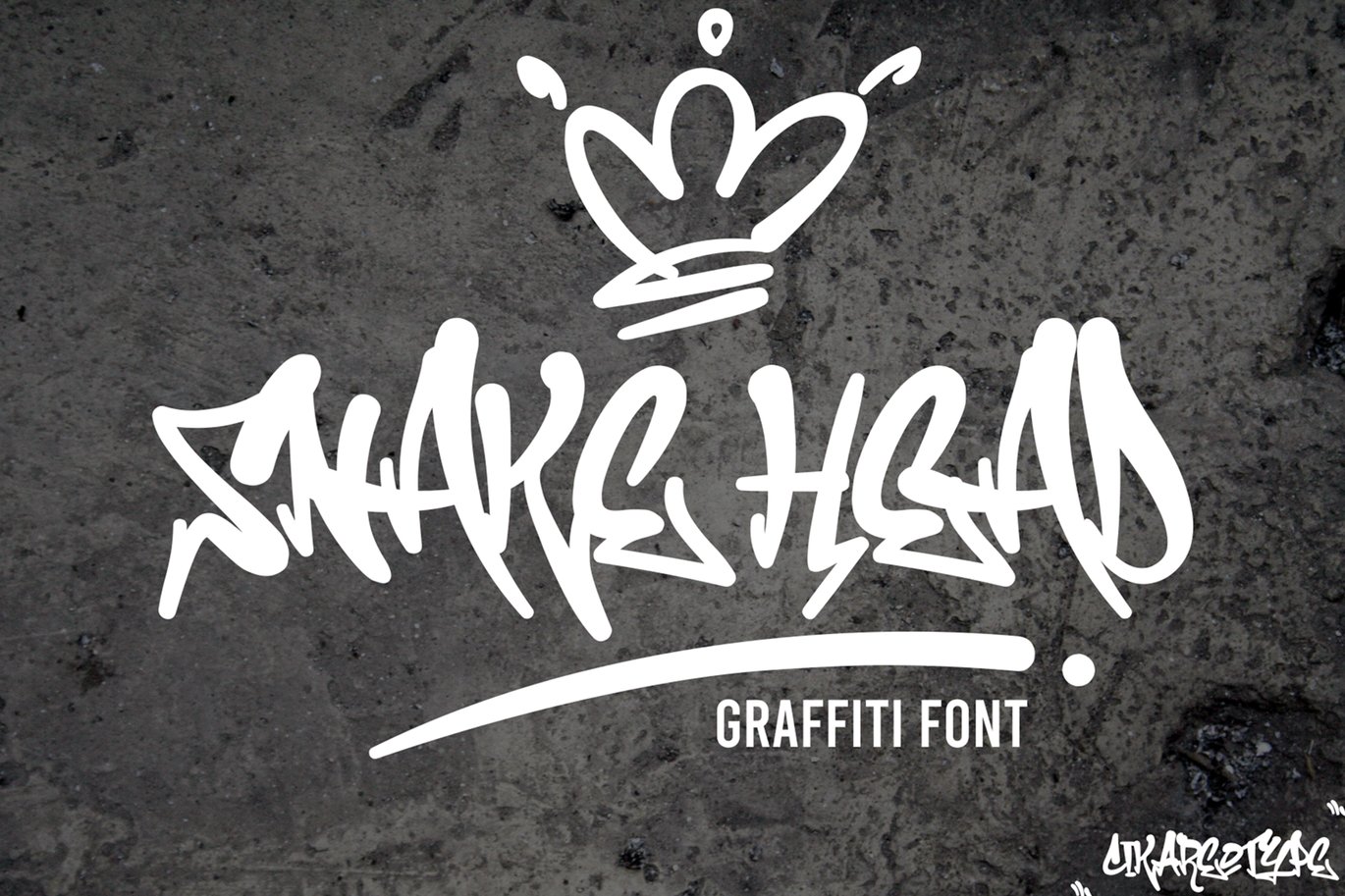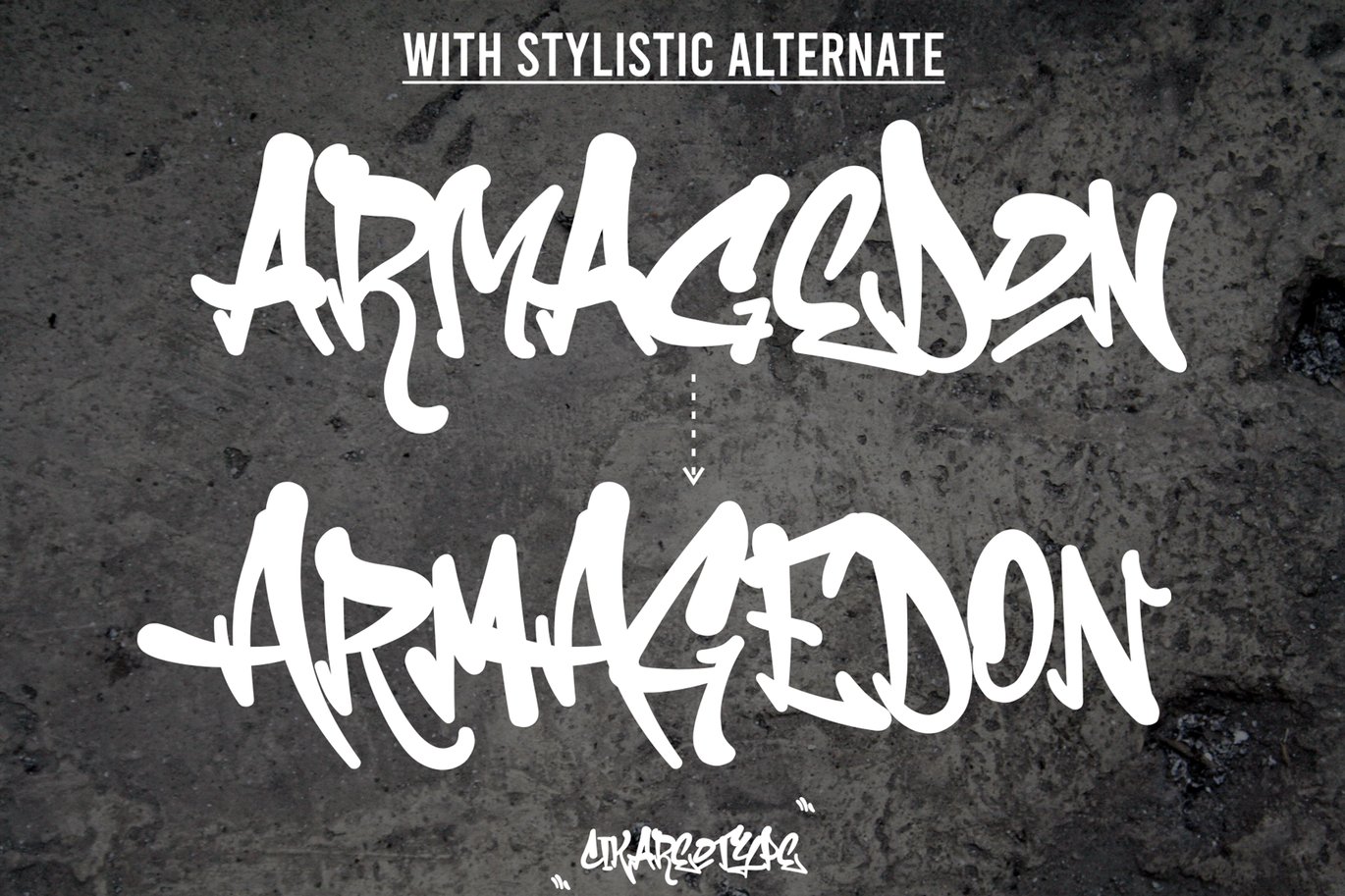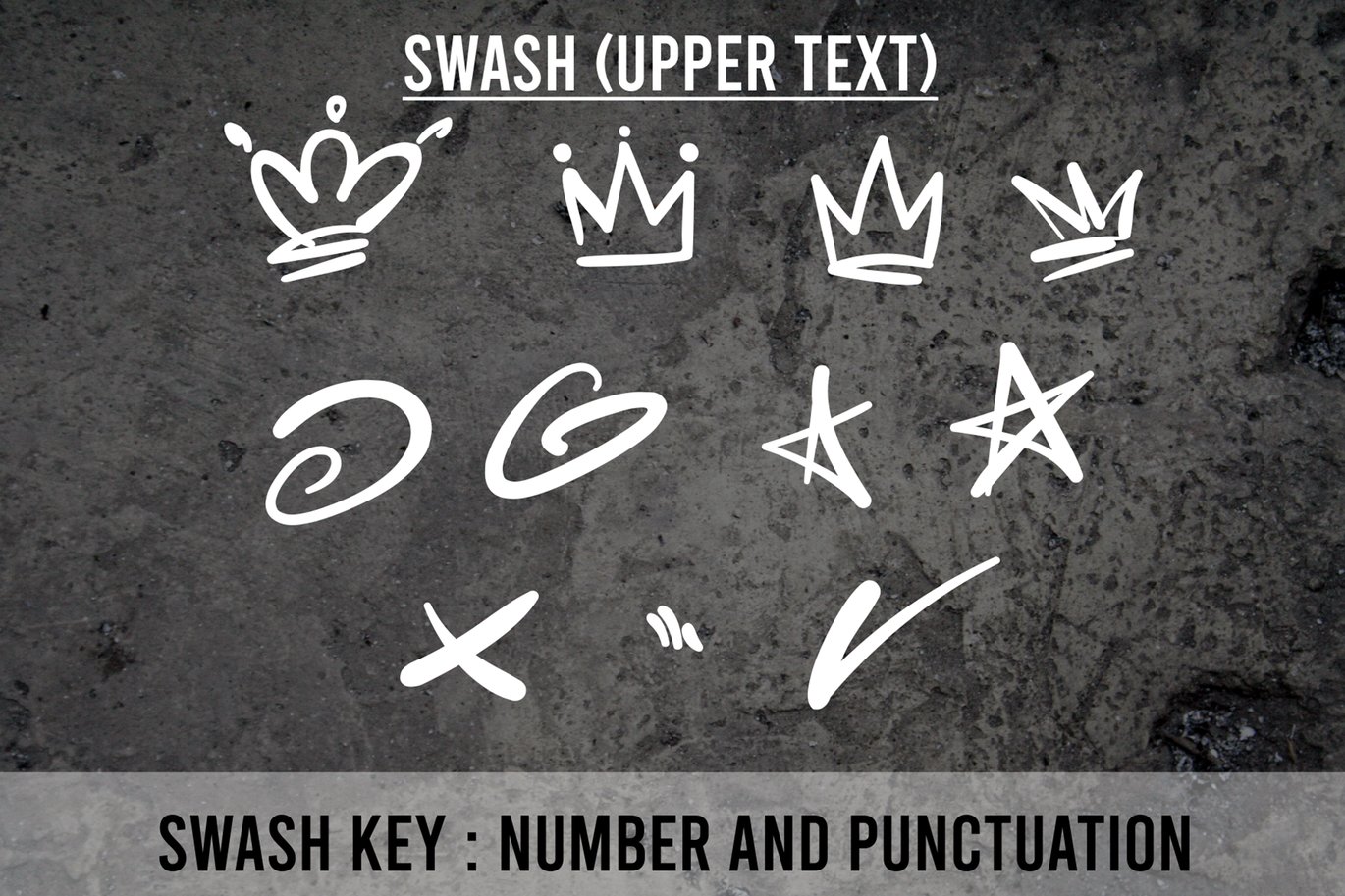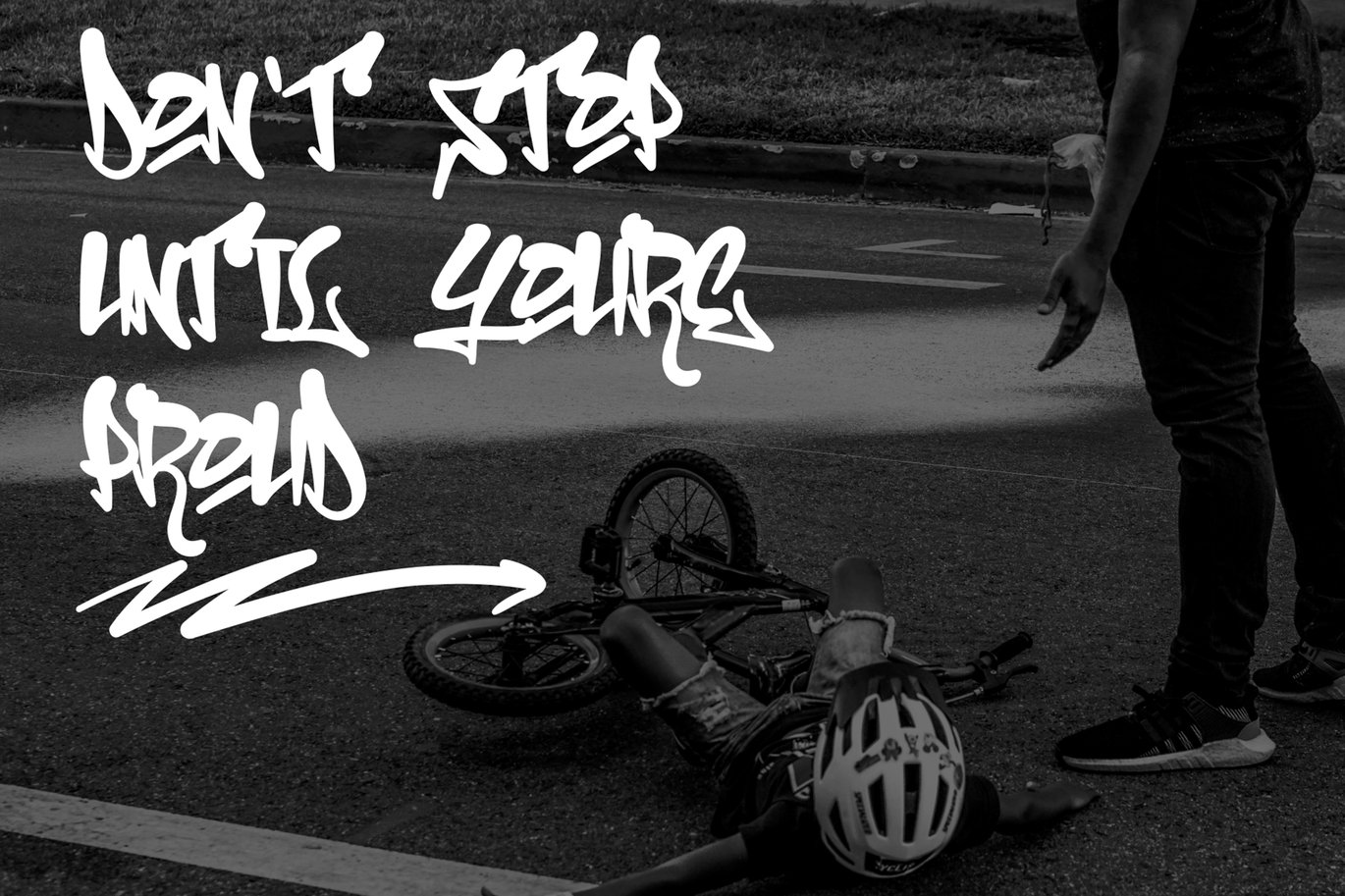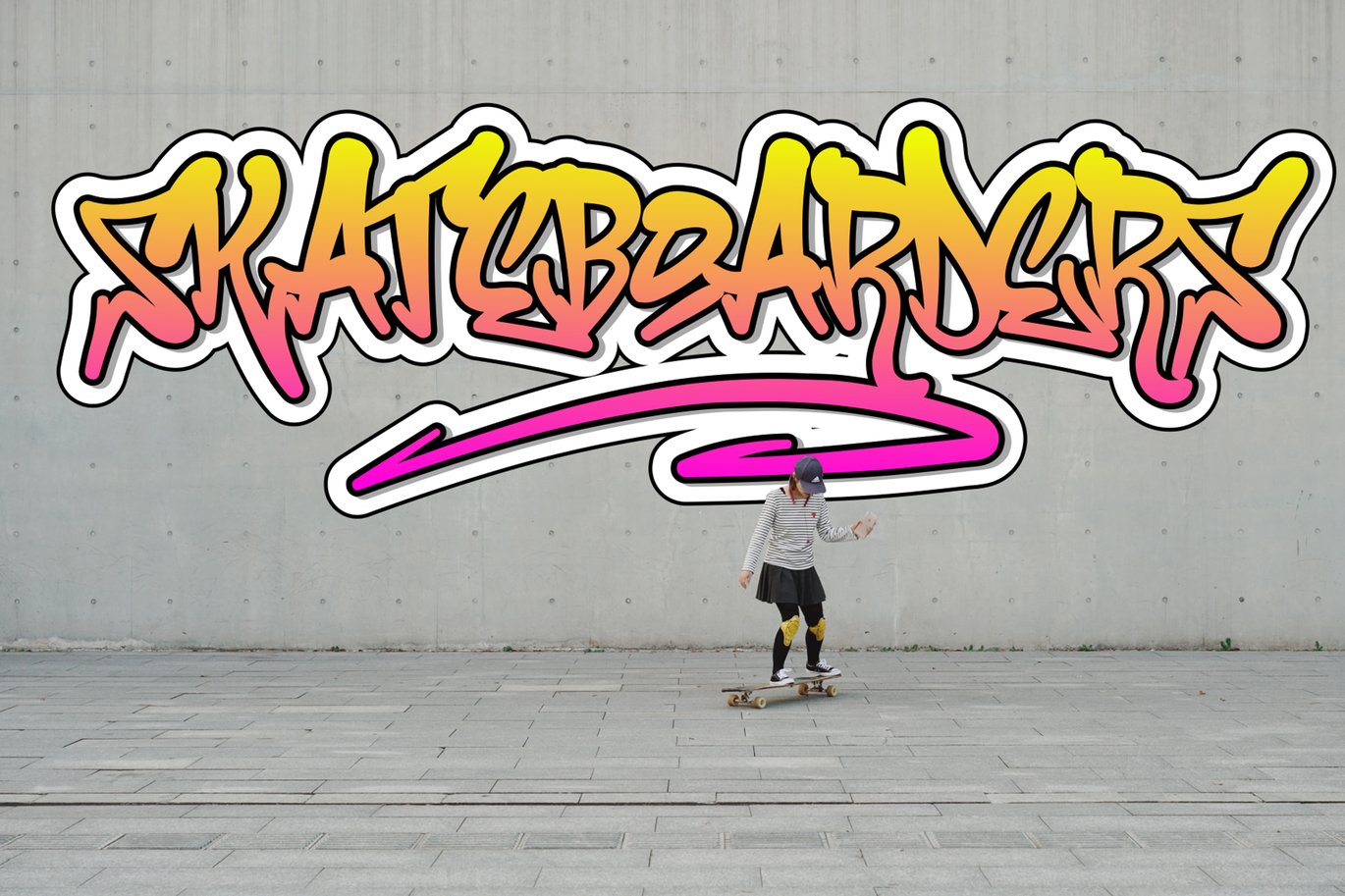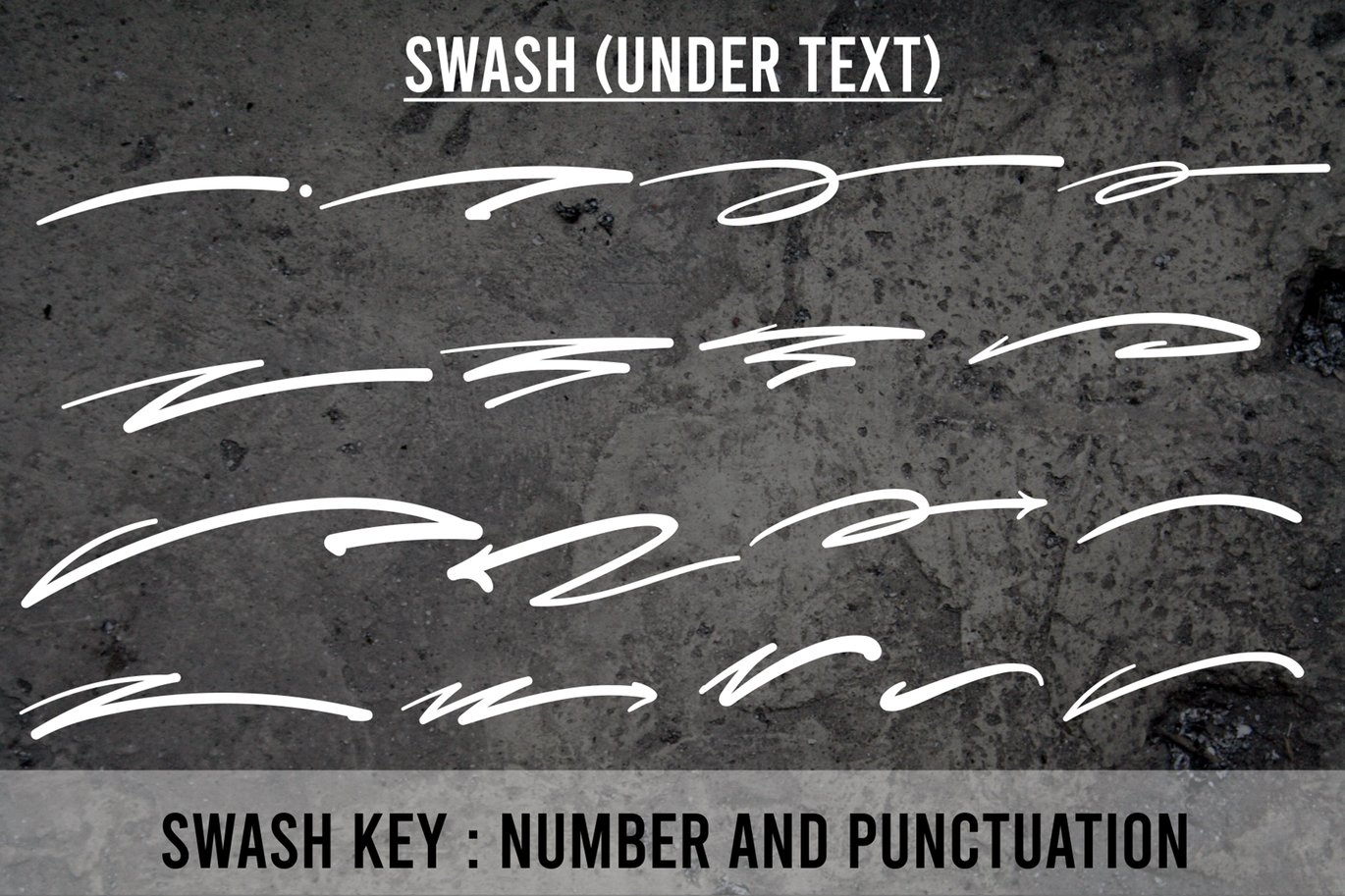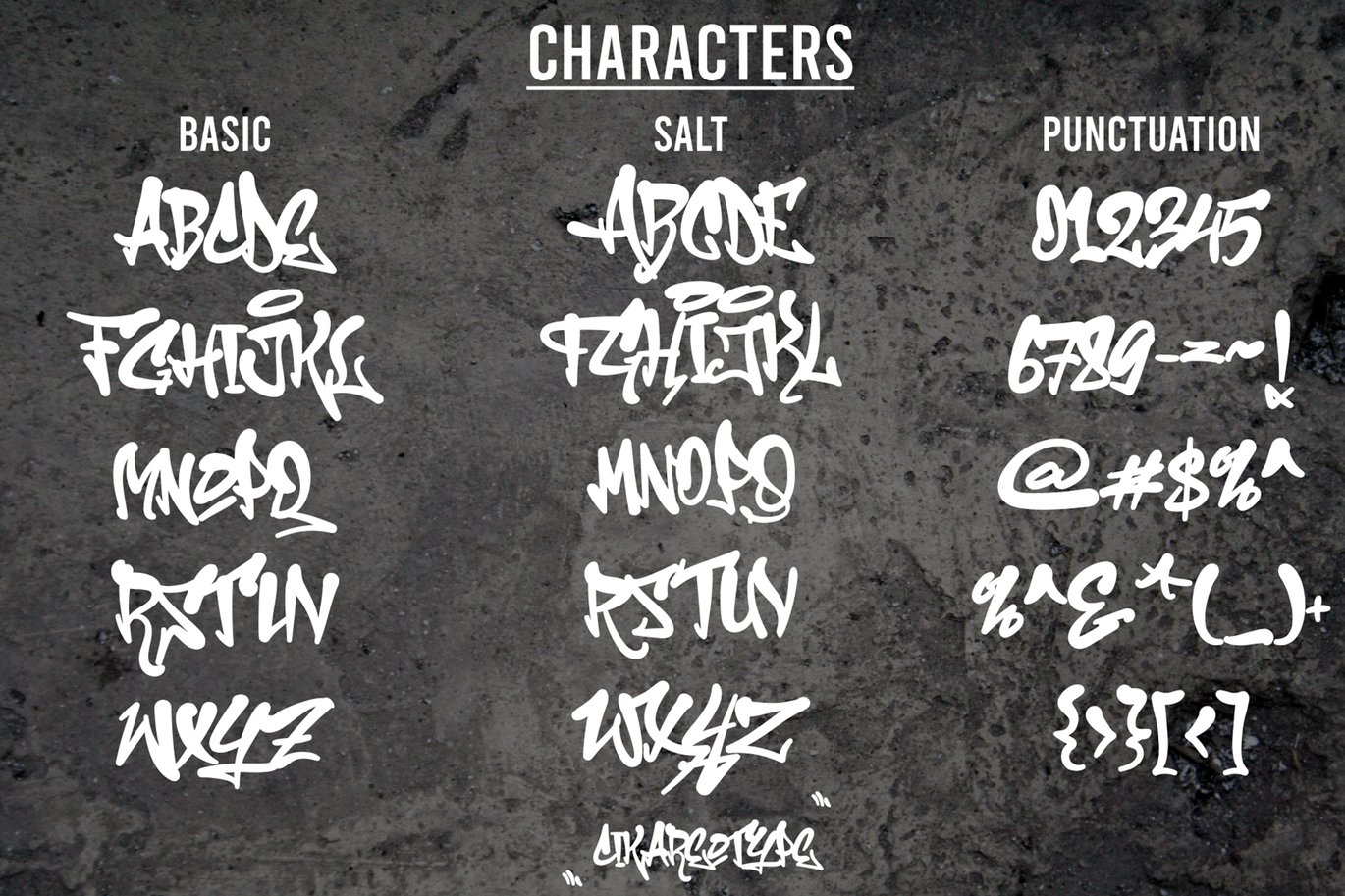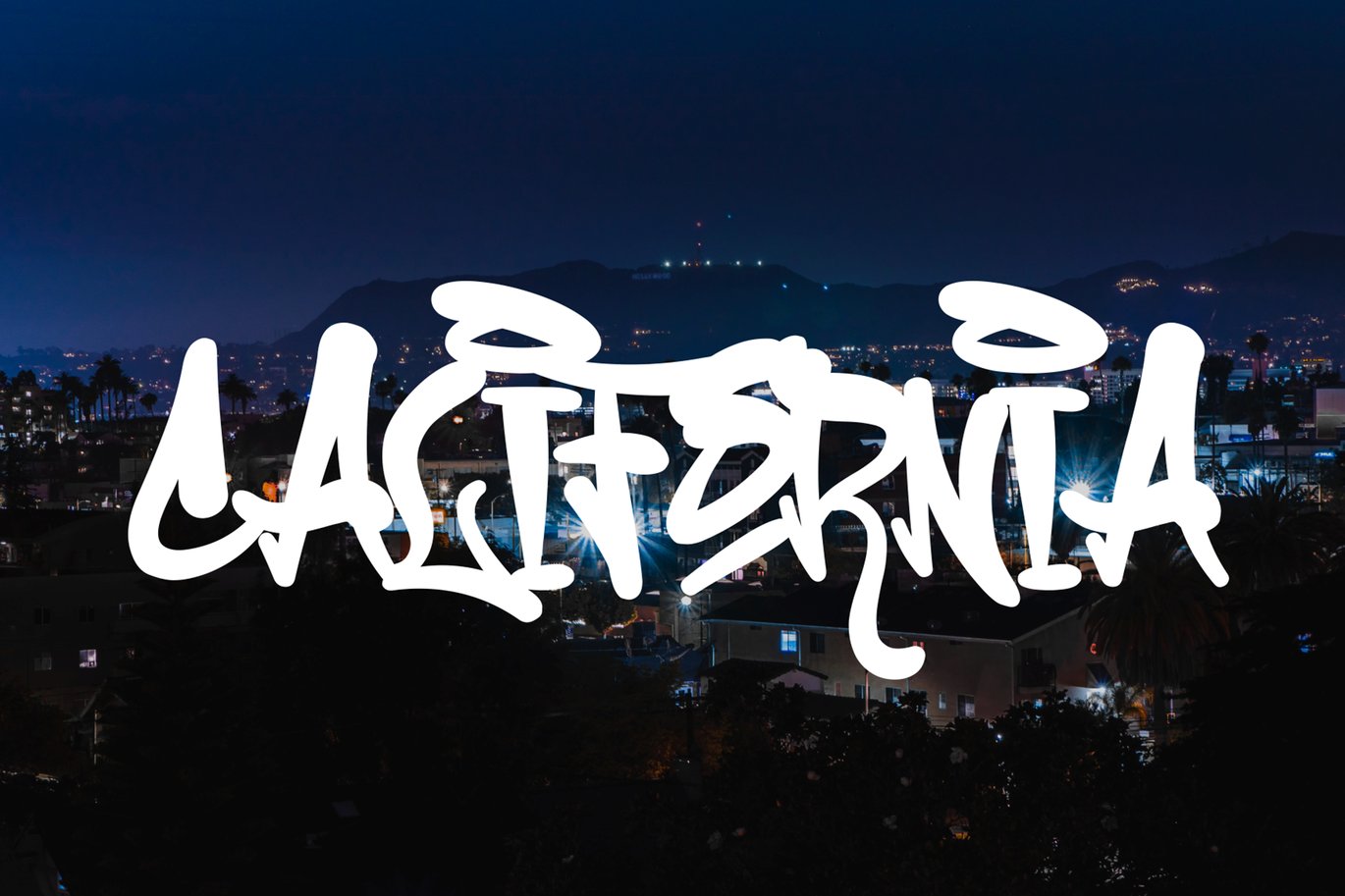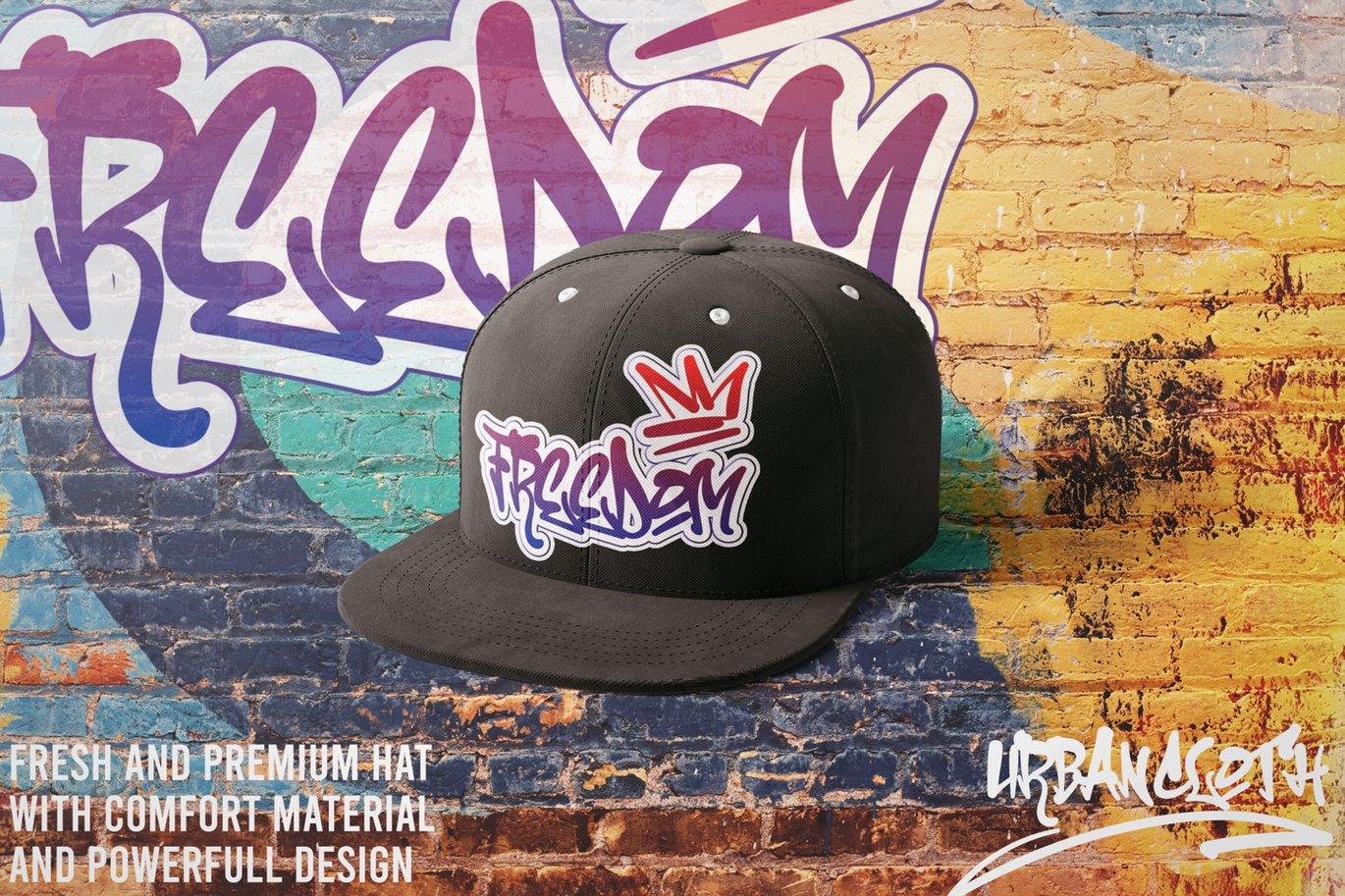
Snakehead – Awesome Graffiti Font
Snakehead is a script font with a graffiti look. cool to be used in various types of designs, with several choices of characters and various kinds of swashes, so that your design looks powerful, this font is suitable for branding, logotype, packaging, advertising, crafting, and various other designs.
- Number and Punctuation
- Stylistic Alternates
- Swash